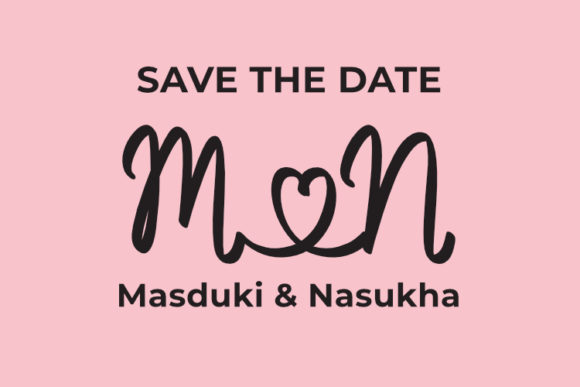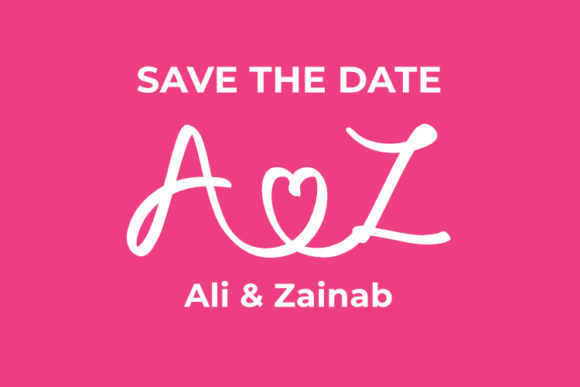
Introducing Couple Font: Celebrating Eclectic Beauty in Typography
In the world of typography, fonts play a crucial role in conveying emotions, setting tone, and creating visual impact. For designers and crafters, finding the perfect font can make all the difference in bringing a project to life. This is where Couple Font comes in – a playfully conceptual display typeface that celebrates abstract shapes in all their eclectic beauty.
The Story Behind Couple Font
Couple Font is more than just a typface – it’s a statement piece. Designed to be bold, eye-catching, and uniquely beautiful, this font is perfect for those who dare to be different. The creators of Couple Font drew inspiration from the world of abstract art, bringing together a range of shapes and forms to create a truly one-of-a-kind display typeface.
What Makes Couple Font Special?
So, what sets Couple Font apart from other fonts out there? Here are just a few features that make it truly special:
- Eclectic Beauty: Couple Font celebrates the beauty of abstract shapes, bringing together a range of unique and playful forms that will add a touch of whimsy to any design.
- Playfully Conceptual: This font is designed to be fun and experimental, making it perfect for designers and crafters who want to push the boundaries of traditional typography.
- Display Typeface: Couple Font is specifically designed as a display typeface, making it perfect for headlines, titles, and other large-format text.
- Versatile: Whether you’re working on a wedding invitation, a branding project, or a packaging design, Couple Font will look truly outstanding in a wide range of contexts.
Perfect for Wedding-Related Designs
One of the standout features of Couple Font is its suitability for wedding-related designs and projects. Whether you’re creating a wedding invitation, a ceremony program, or a wedding website, this font will add a touch of elegance and sophistication. The playful, abstract shapes will also bring a sense of romance and whimsy to your design, making it perfect for couples who want to make their special day truly unforgettable.
Tips for Using Couple Font
So, how can you get the most out of Couple Font? Here are a few tips for using this beautiful font in your designs:
- Experiment with Colors: Couple Font looks amazing in bold, bright colors. Don’t be afraid to experiment with different color combinations to bring your design to life.
- Play with Scale: This font is designed to be bold and eye-catching, so don’t be afraid to play with scale to create visual interest.
- Mix and Match: Couple Font pairs perfectly with other fonts. Try mixing and matching it with different typefaces to create a unique and visually appealing design.
In conclusion, Couple Font is a truly unique and special font that celebrates the beauty of abstract shapes. With its playful, conceptual design and versatile range of applications, this font is perfect for designers and crafters who want to add a touch of elegance and sophistication to their projects. Whether you’re working on a wedding-related design or a branding project, Couple Font is sure to make a statement.
Get Ready to Fall in Love with Couple Font
So, what are you waiting for? Get ready to fall in love with Couple Font and bring a touch of eclectic beauty to your designs. With its bold, eye-catching shapes and playful conceptual design, this font is sure to become a favorite in your typography arsenal.